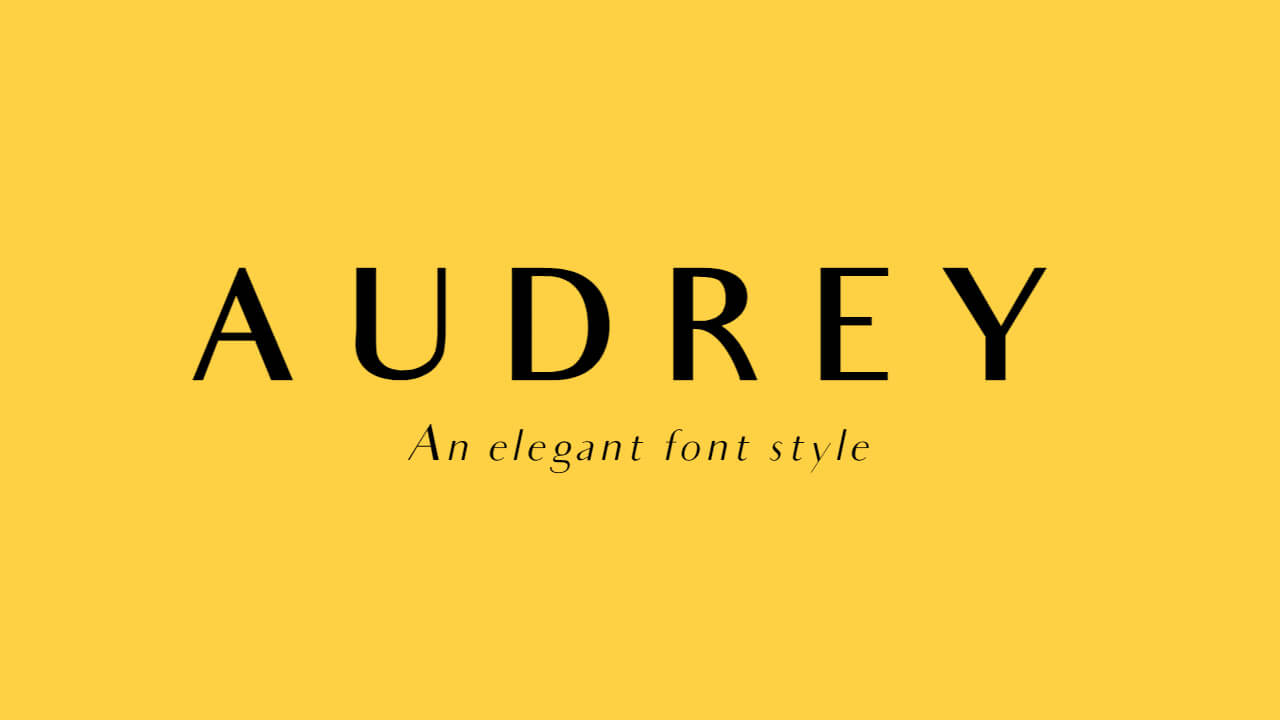
What Is The Best Font For A Brochure . What is the best font size for a brochure? The font you select should align with your brand’s aesthetics while being legible and visually appealing. A good brochure typography font will both complement the contents of. Looking for the perfect font for your next flyer design? Whether you're creating a corporate pamphlet, an event flyer, or a creative showcase, these fonts provide the essential ingredients for a visually appealing and. The best fonts for business brochures and flyers combine classic styling with modern features. Look no further than our comprehensive list of the 27+ best fonts for flyers & brochures. Best typography fonts for brochures. The best fonts for brochures are those that whisper (or shout, if that’s your style) your brand’s personality.
Whether you're creating a corporate pamphlet, an event flyer, or a creative showcase, these fonts provide the essential ingredients for a visually appealing and. What is the best font size for a brochure? Look no further than our comprehensive list of the 27+ best fonts for flyers & brochures. Best typography fonts for brochures. The best fonts for brochures are those that whisper (or shout, if that’s your style) your brand’s personality. A good brochure typography font will both complement the contents of. Looking for the perfect font for your next flyer design? The best fonts for business brochures and flyers combine classic styling with modern features. The font you select should align with your brand’s aesthetics while being legible and visually appealing.
20 Best Brochure Fonts
What Is The Best Font For A Brochure The best fonts for business brochures and flyers combine classic styling with modern features. What is the best font size for a brochure? Whether you're creating a corporate pamphlet, an event flyer, or a creative showcase, these fonts provide the essential ingredients for a visually appealing and. The font you select should align with your brand’s aesthetics while being legible and visually appealing. Looking for the perfect font for your next flyer design? The best fonts for business brochures and flyers combine classic styling with modern features. The best fonts for brochures are those that whisper (or shout, if that’s your style) your brand’s personality. Look no further than our comprehensive list of the 27+ best fonts for flyers & brochures. Best typography fonts for brochures. A good brochure typography font will both complement the contents of.
24 Fonts for Brochures That Will Propel Your Visual Communication What Is The Best Font For A Brochure What is the best font size for a brochure? Look no further than our comprehensive list of the 27+ best fonts for flyers & brochures. Whether you're creating a corporate pamphlet, an event flyer, or a creative showcase, these fonts provide the essential ingredients for a visually appealing and. The best fonts for brochures are those that whisper (or shout,. What Is The Best Font For A Brochure.
80+ Best Canva Fonts Ultimate Canva Font Guide for Choosing Fonts What Is The Best Font For A Brochure What is the best font size for a brochure? Best typography fonts for brochures. Look no further than our comprehensive list of the 27+ best fonts for flyers & brochures. Looking for the perfect font for your next flyer design? The font you select should align with your brand’s aesthetics while being legible and visually appealing. The best fonts for. What Is The Best Font For A Brochure.
10 Best Fonts for Brilliant Brochures What Is The Best Font For A Brochure The font you select should align with your brand’s aesthetics while being legible and visually appealing. What is the best font size for a brochure? The best fonts for business brochures and flyers combine classic styling with modern features. Looking for the perfect font for your next flyer design? Best typography fonts for brochures. Whether you're creating a corporate pamphlet,. What Is The Best Font For A Brochure.
24 Fonts for Brochures That Will Propel Your Visual Communication What Is The Best Font For A Brochure Look no further than our comprehensive list of the 27+ best fonts for flyers & brochures. The font you select should align with your brand’s aesthetics while being legible and visually appealing. Looking for the perfect font for your next flyer design? What is the best font size for a brochure? Best typography fonts for brochures. Whether you're creating a. What Is The Best Font For A Brochure.
24 Fonts for Brochures That Will Propel Your Visual Communication What Is The Best Font For A Brochure Look no further than our comprehensive list of the 27+ best fonts for flyers & brochures. What is the best font size for a brochure? A good brochure typography font will both complement the contents of. The best fonts for business brochures and flyers combine classic styling with modern features. Whether you're creating a corporate pamphlet, an event flyer, or. What Is The Best Font For A Brochure.
15 Rules of Typography Brochure Layout Design (2017) Behance What Is The Best Font For A Brochure Whether you're creating a corporate pamphlet, an event flyer, or a creative showcase, these fonts provide the essential ingredients for a visually appealing and. The font you select should align with your brand’s aesthetics while being legible and visually appealing. Look no further than our comprehensive list of the 27+ best fonts for flyers & brochures. Looking for the perfect. What Is The Best Font For A Brochure.
10+ Best Fonts for Brochures in 2021 Free and Premium Fonts What Is The Best Font For A Brochure Whether you're creating a corporate pamphlet, an event flyer, or a creative showcase, these fonts provide the essential ingredients for a visually appealing and. Looking for the perfect font for your next flyer design? A good brochure typography font will both complement the contents of. The best fonts for business brochures and flyers combine classic styling with modern features. What. What Is The Best Font For A Brochure.
10+ Best Fonts for Brochures in 2021 Free and Premium Fonts What Is The Best Font For A Brochure The best fonts for business brochures and flyers combine classic styling with modern features. A good brochure typography font will both complement the contents of. The best fonts for brochures are those that whisper (or shout, if that’s your style) your brand’s personality. The font you select should align with your brand’s aesthetics while being legible and visually appealing. Look. What Is The Best Font For A Brochure.